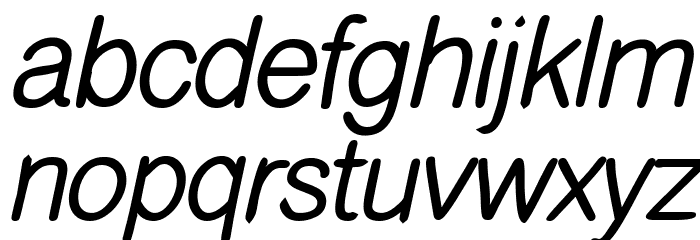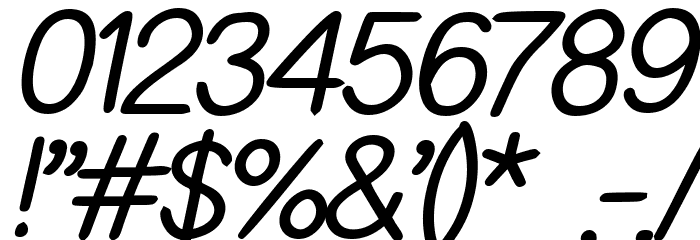
Kioves Bold Italic Font
This font features a sleek and modern design with a bold and italicized style. The characters are slightly slanted, giving a sense of motion and dynamism. The strokes are consistent in thickness, providing a uniform appearance across all characters. The uppercase and lowercase letters are well-proportioned, with a slight curvature that adds a touch of elegance. The numerals are clear and easy to read, making them suitable for various applications. Special characters are distinct and maintain the overall aesthetic of the font. The spacing between characters is balanced, ensuring readability while maintaining a compact look.
A bold, italicized modern font with sleek, consistent strokes and balanced spacing.
- Proposed Projects: Ideal for branding, advertising, headlines, and digital media where a modern and dynamic look is desired.
- Use Case: Headlines, Logos, Advertising